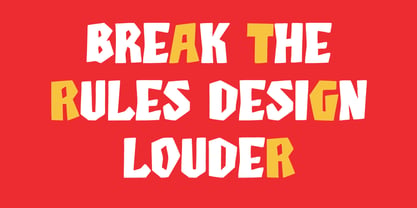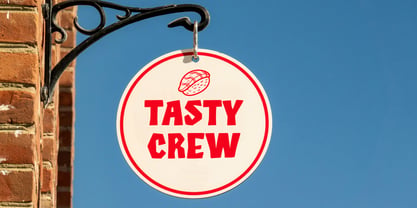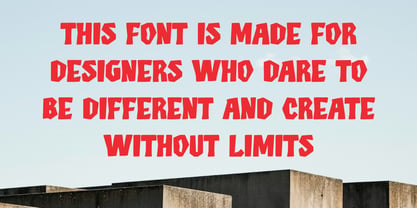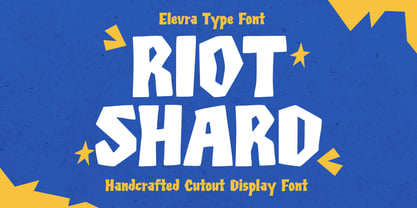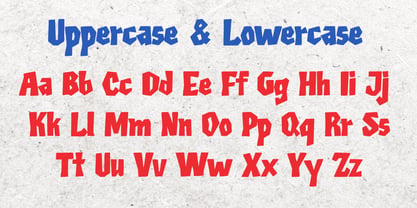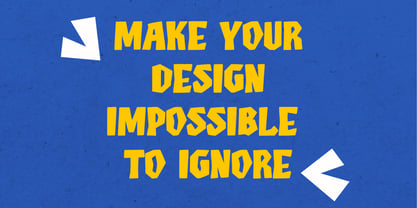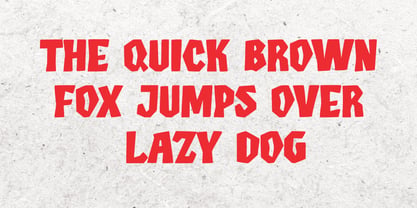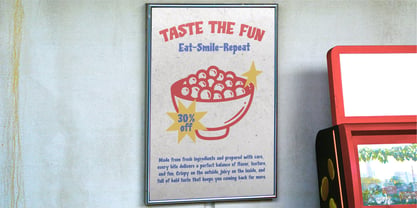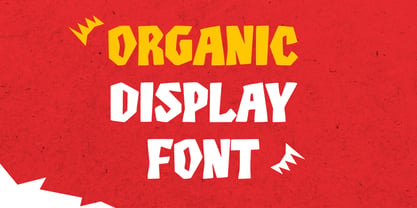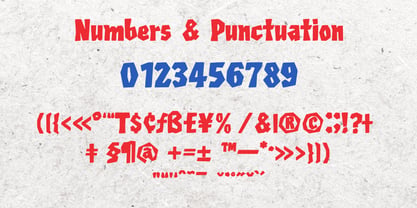
Riot Shard
La familia tipográfica Riot Shard fue diseñada por Wirandi Limansyah Zendrato y publicada por Elevra. Riot Shard contiene 1 estilos. Más información sobre esta familia
Riot Shard is a bold and expressive handcrafted cutout display font designed to bring playful chaos and strong visual impact to your typography. Inspired by paper-cut shapes and hand-crafted lettering, this font features irregular edges and dynamic letterforms that create a fun, energetic, and slightly rebellious look. Each character feels organic and unique, making Riot Shard perfect for designs that need personality and attitude. It works especially well for posters, children’s projects, branding, packaging, editorial headlines, creative logos, social media graphics, and eye-catching merchandise. The chunky shapes ensure excellent readability while still maintaining a handmade, artistic feel. Riot Shard blends creativity and boldness, making it a great choice for designers who want something different from clean geometric fonts. Whether used in large headlines or playful layouts, this font delivers strong character and visual excitement.